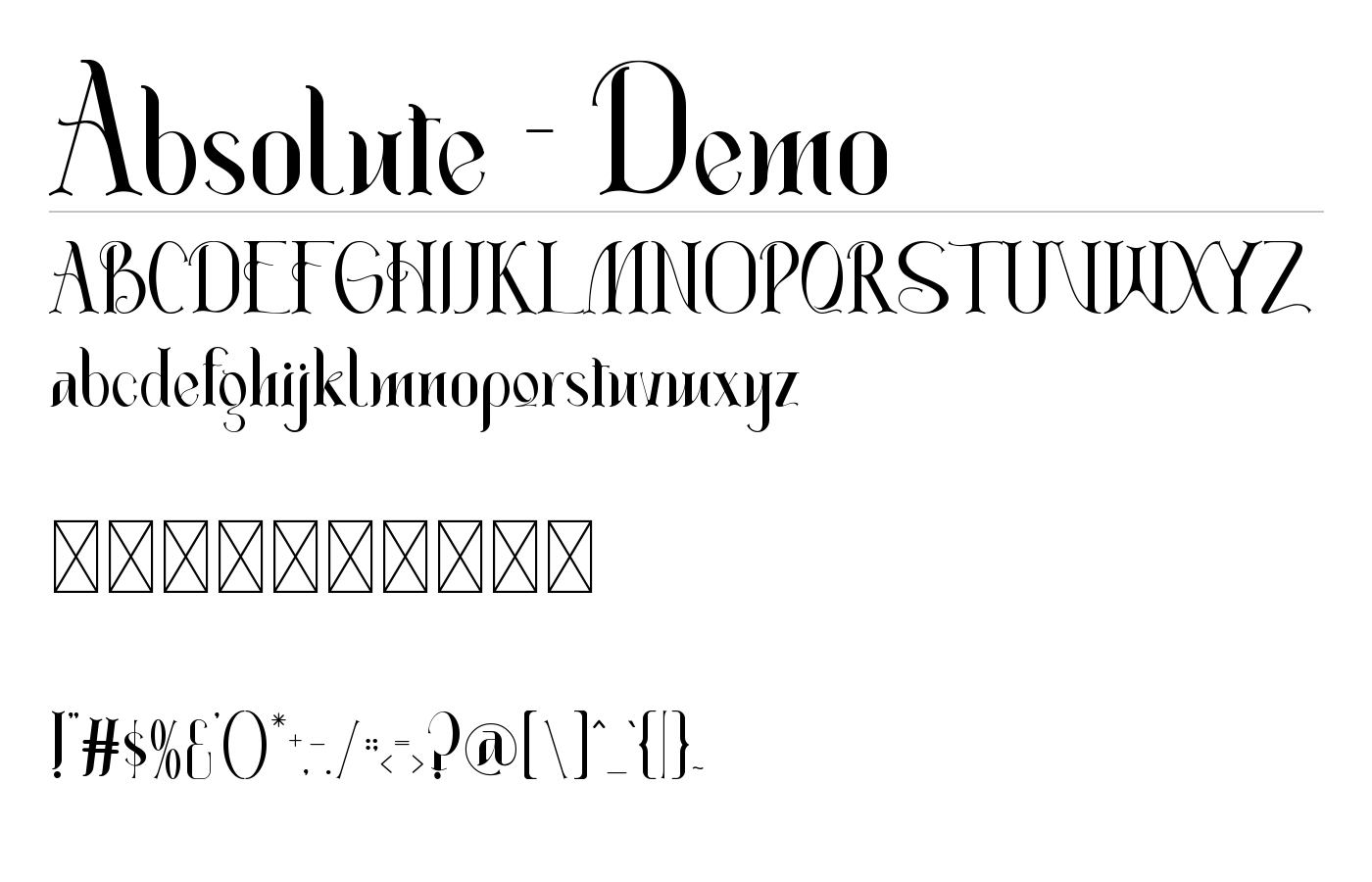
Absolute - Demo is a distinctive serif font characterized by its elegant, tall letterforms with high contrast between thick and thin strokes. Its narrow width and decorative, sharp serifs give it a refined, vintage feel that makes it perfect for sophisticated branding, editorial headlines, and luxury packaging. This font adds a touch of artistic flair and classical charm where a dramatic and stylish impression is desired.
Absolute - Demo Font
About Absolute - Demo Font